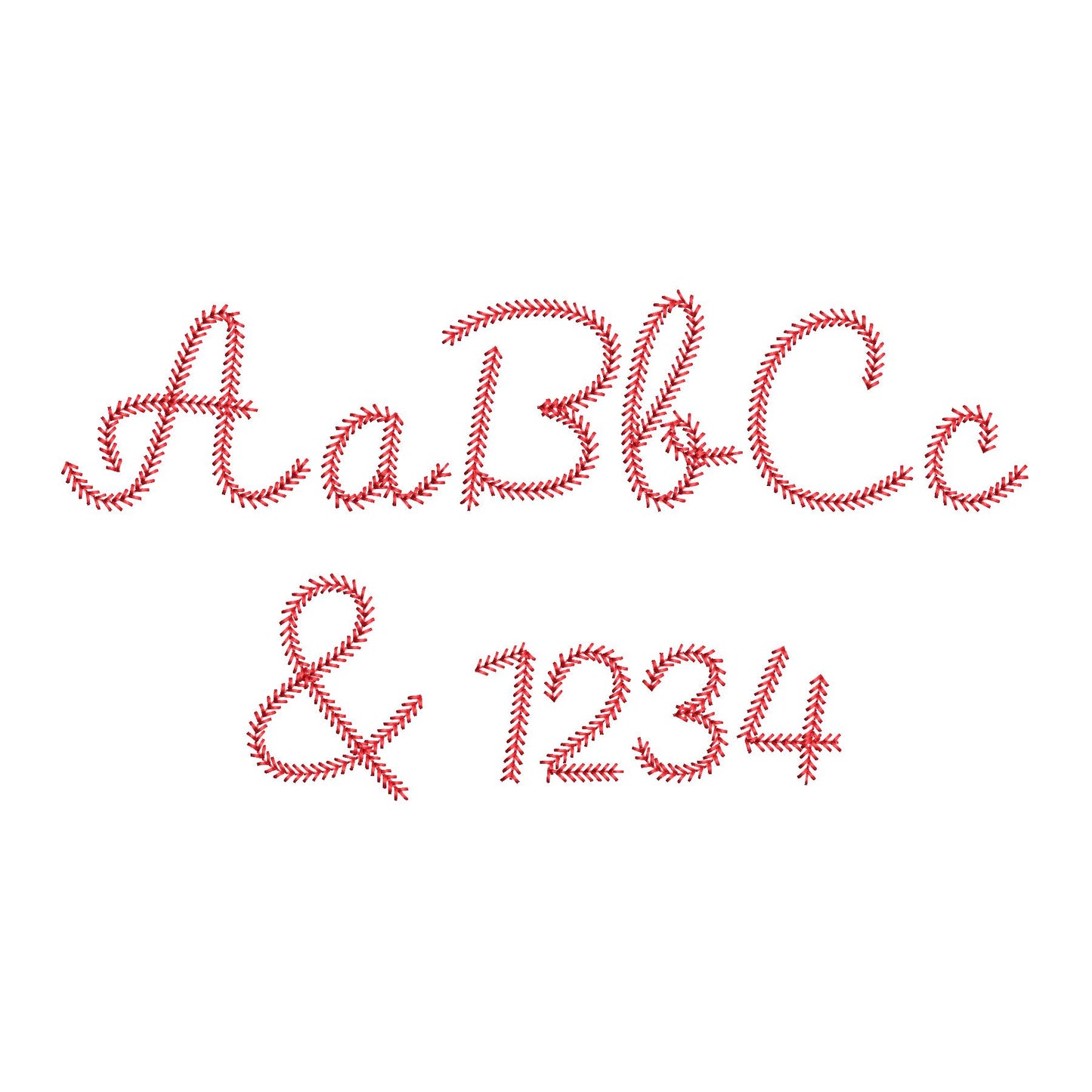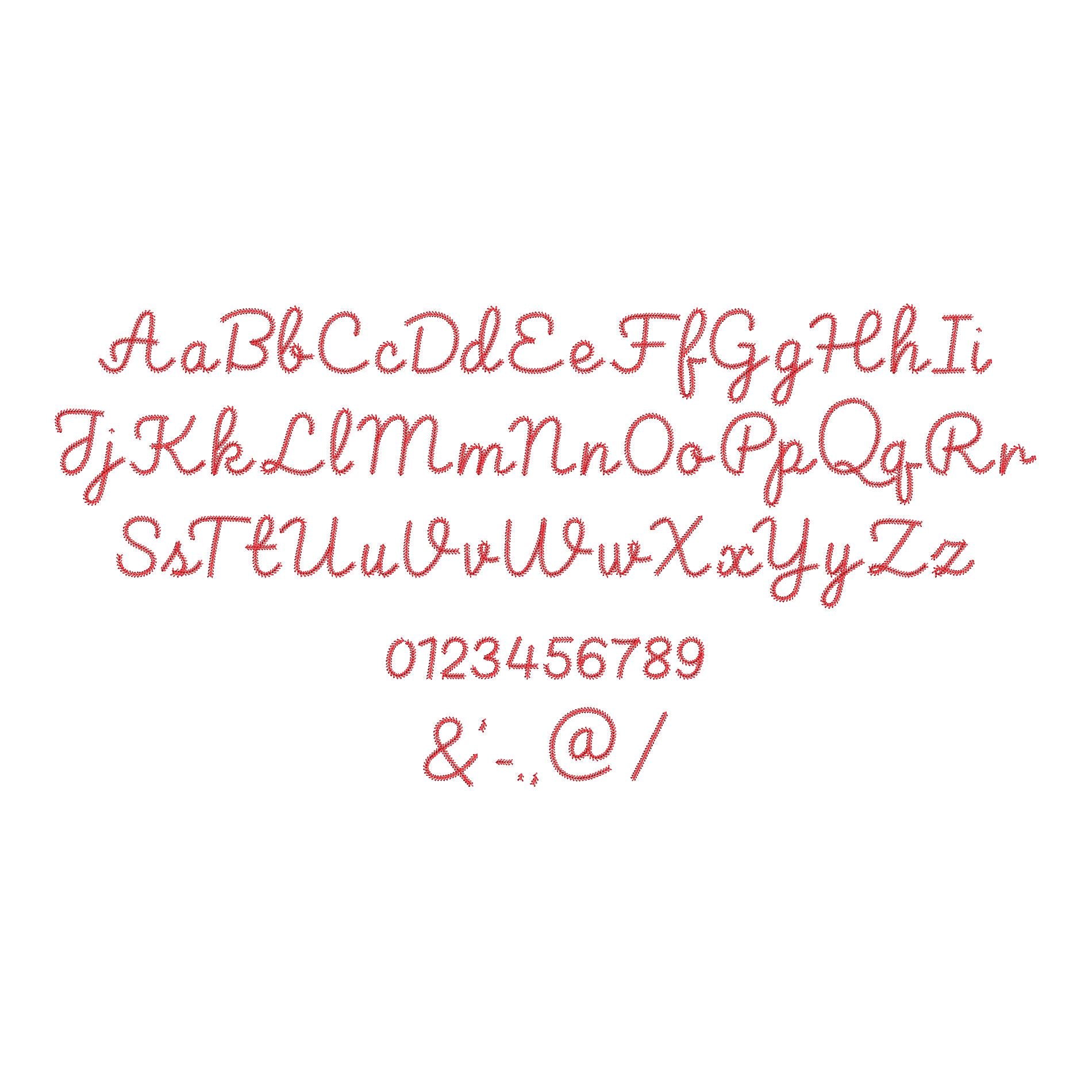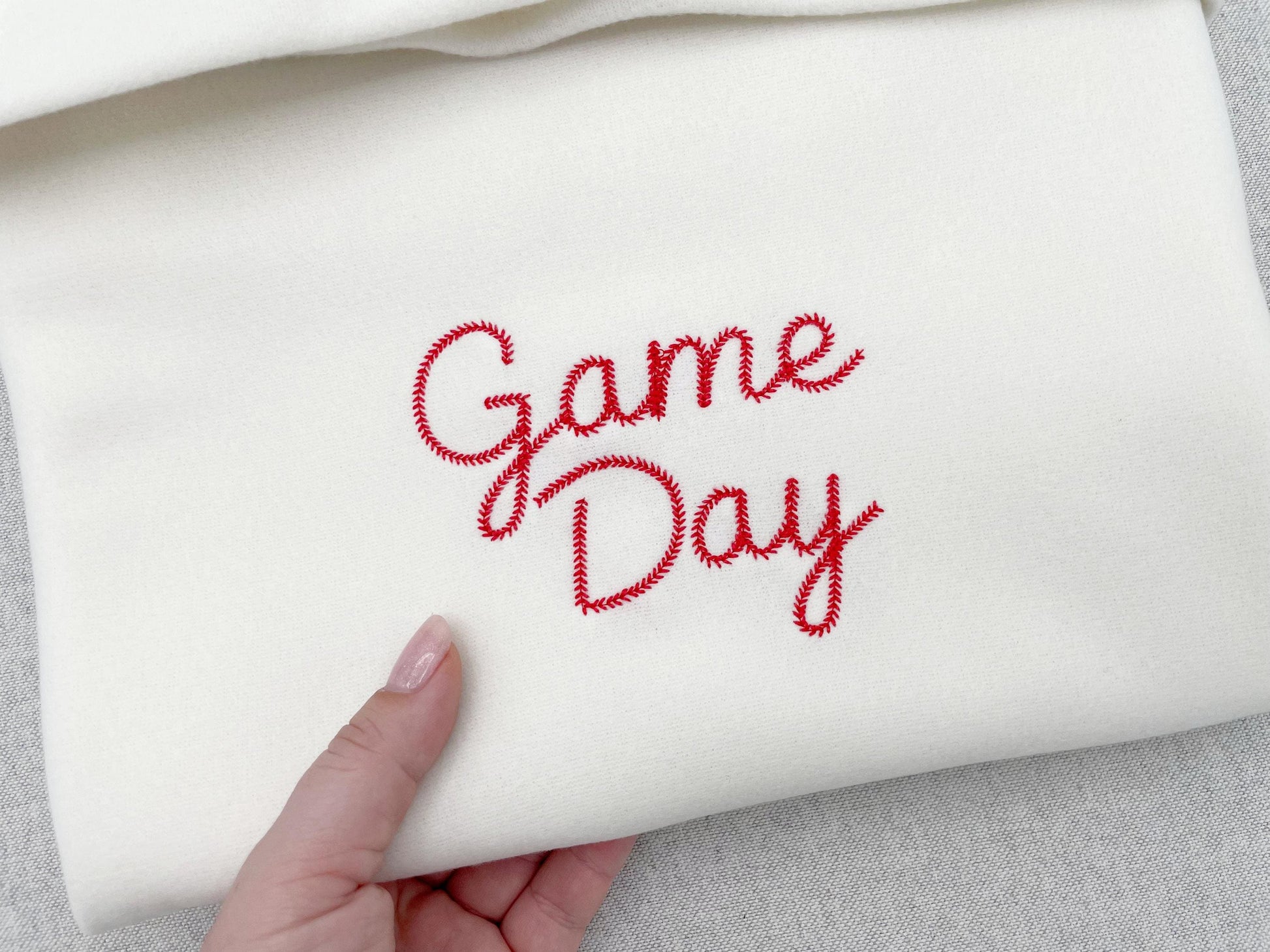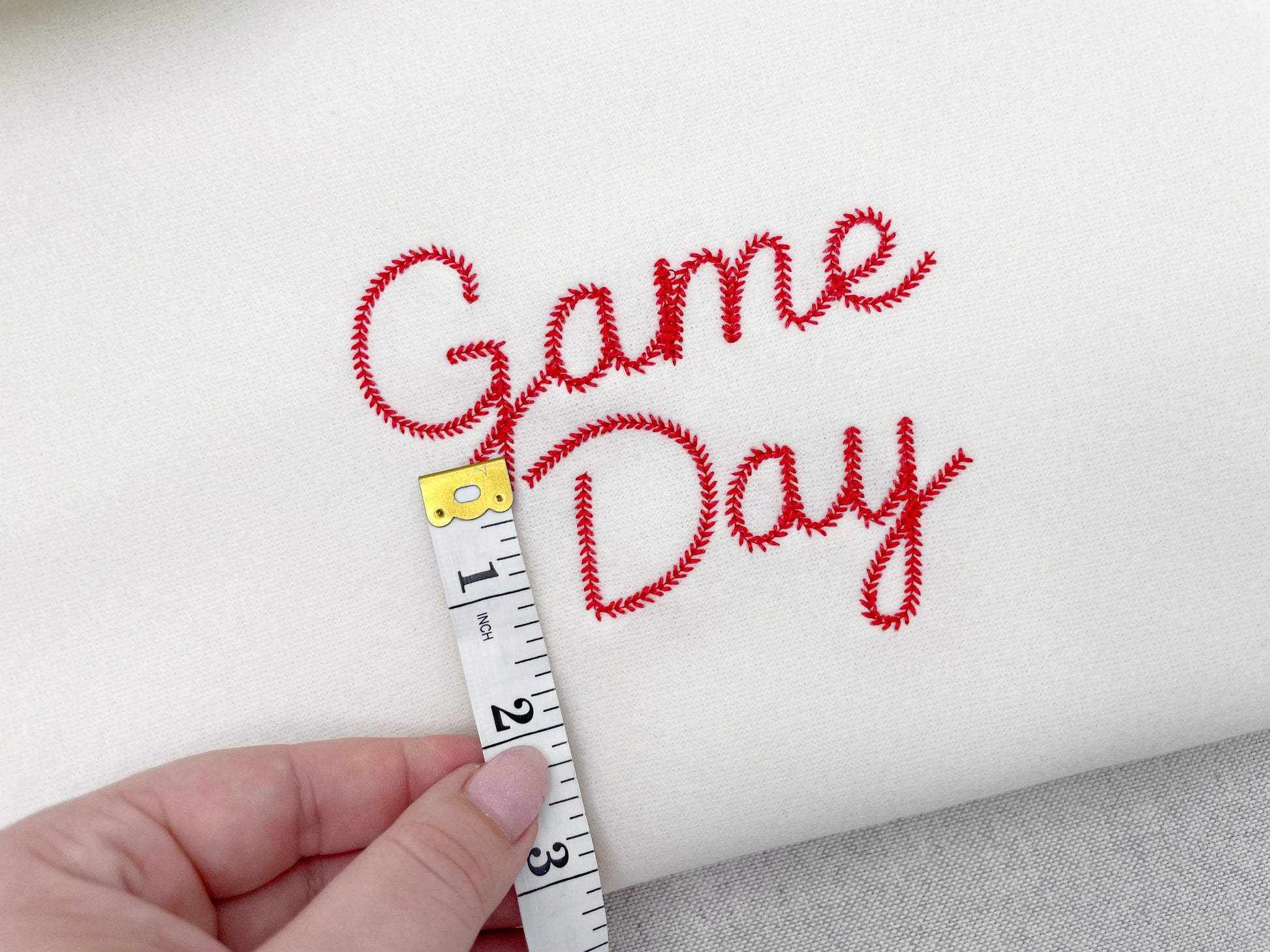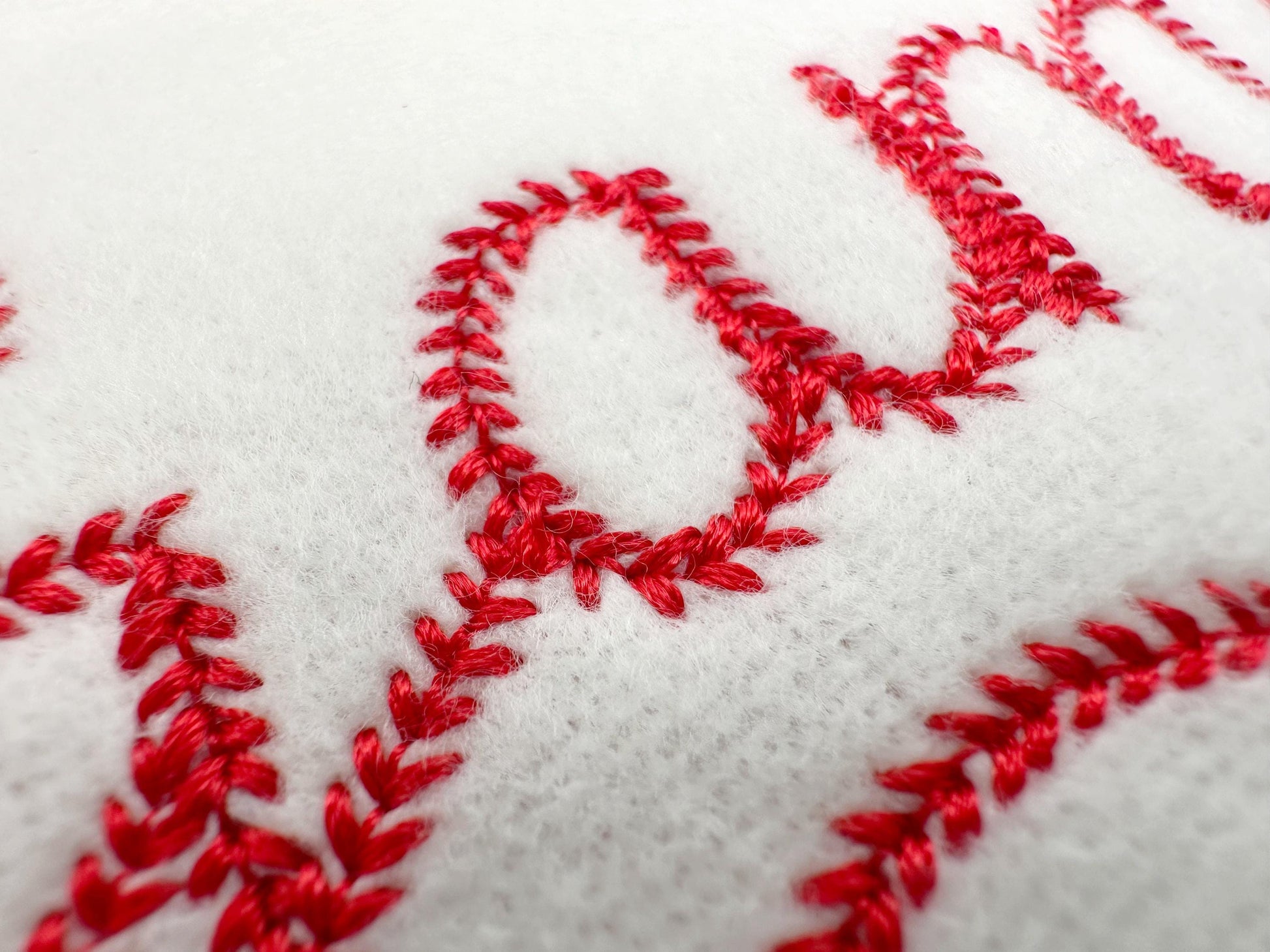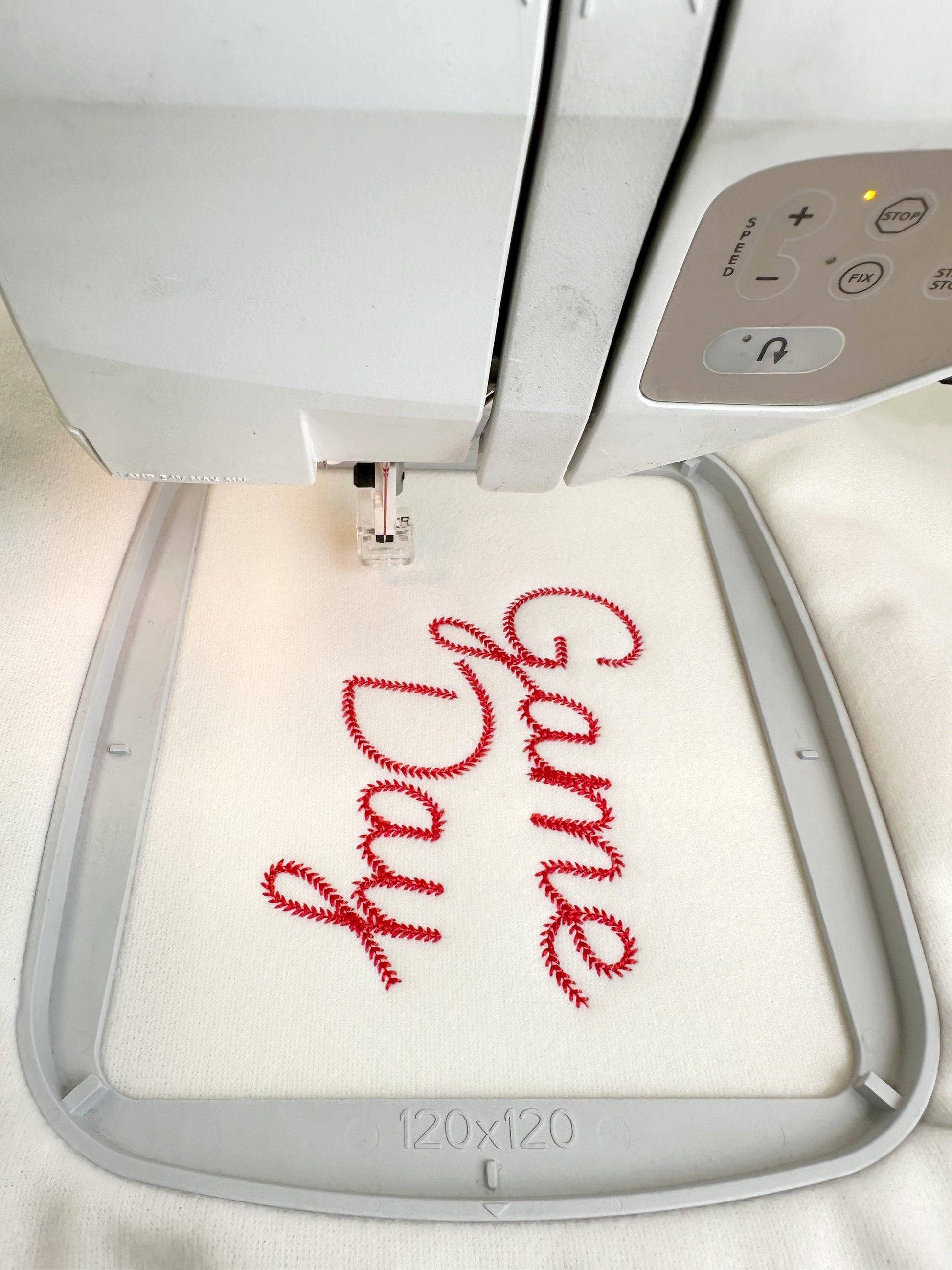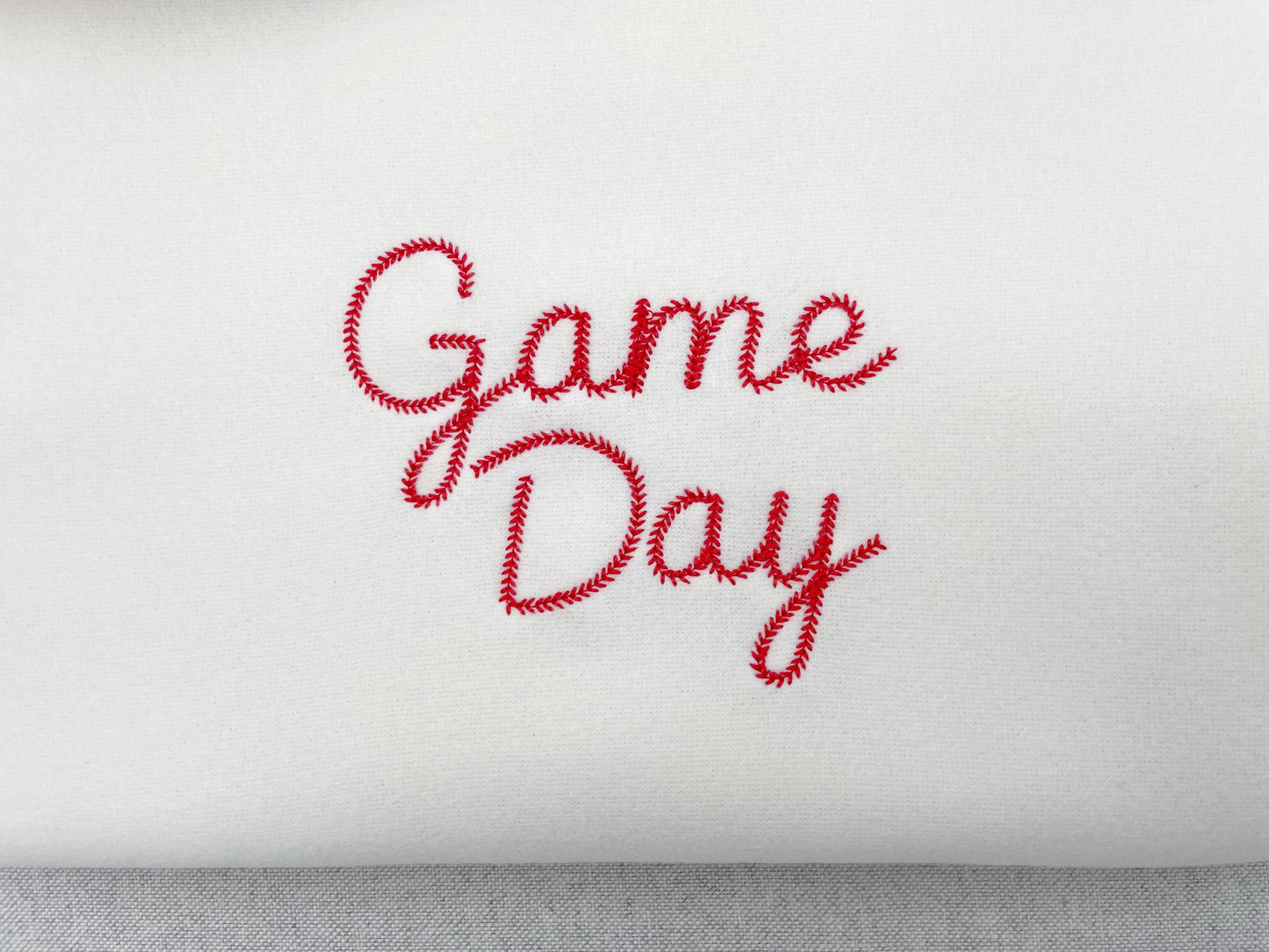
Baseball Font Paxton
The letters come in six sizes: 1, 1.3, 1.6, 2, 2.4 and 3 inches. The stitch copies the look of baseball seams. Includes uppercase and lowercase letters A to Z, numbers 0 to 9 and punctuation.
- Baseball stitch script font
- 6 sizes, 1 to 3 in